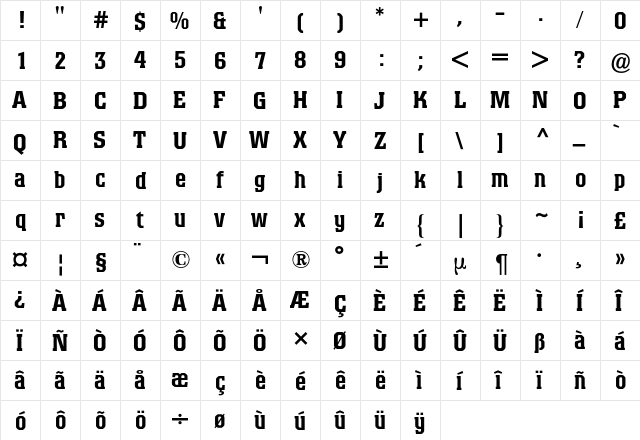
Colossalis BQ Regular
Design Context for Colossalis BQ Typeface
Colossalis BQ offers clean, dependable letterforms without strong stylistic allegiance, making it a practical choice for designers who need flexibility.